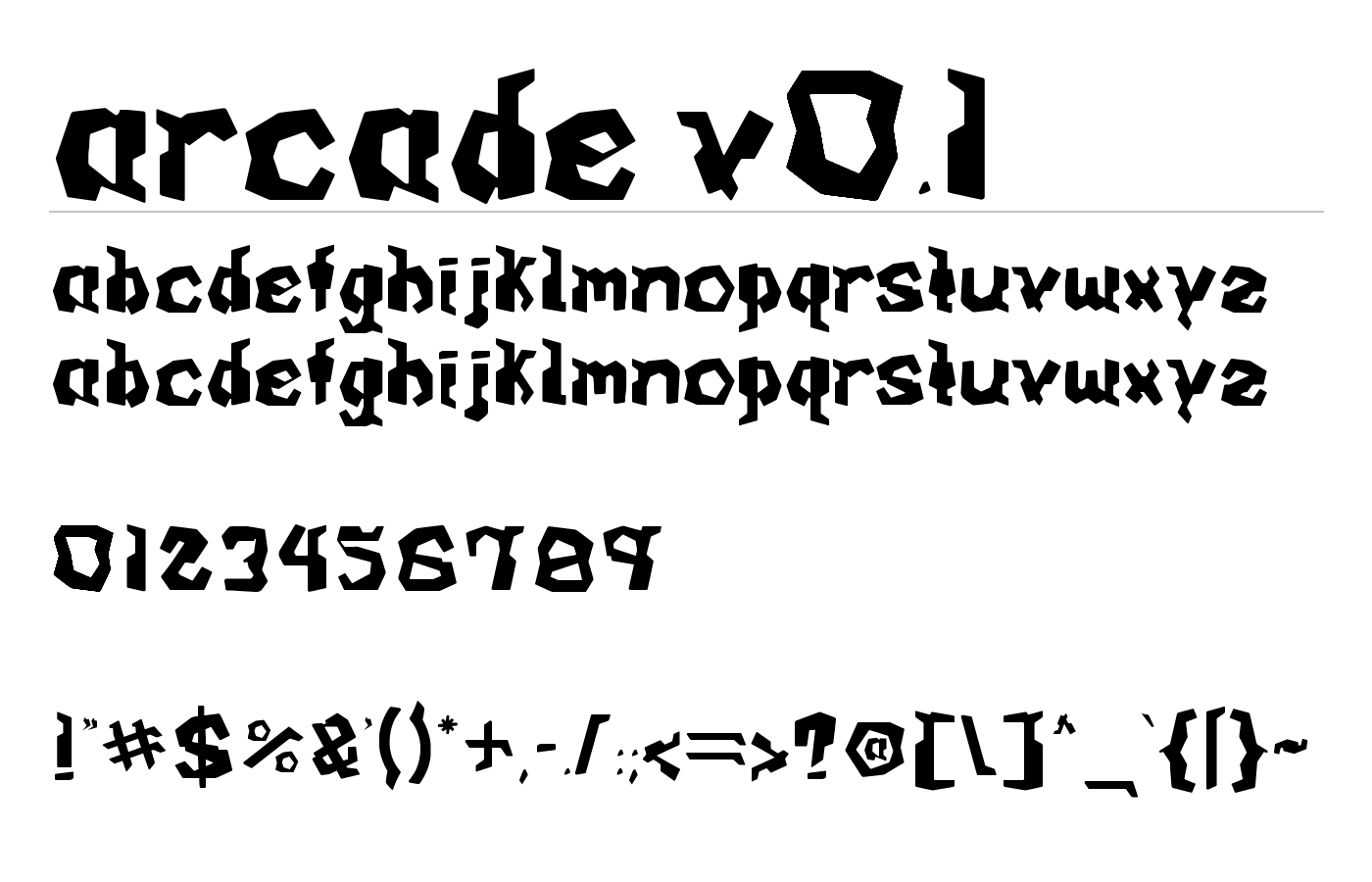
Arcade v0.1 is a bold, angular display font with a strong, geometric style that evokes a retro, video game-inspired vibe. Its irregular, faceted letterforms and high contrast strokes make it eye-catching and playful, perfect for adding a nostalgic but edgy feel to headlines, posters, or branding projects requiring a distinctive, vintage gaming look. This font works well where a bold and dynamic statement is needed, especially in creative and entertainment contexts.
Arcade v0.1 Font